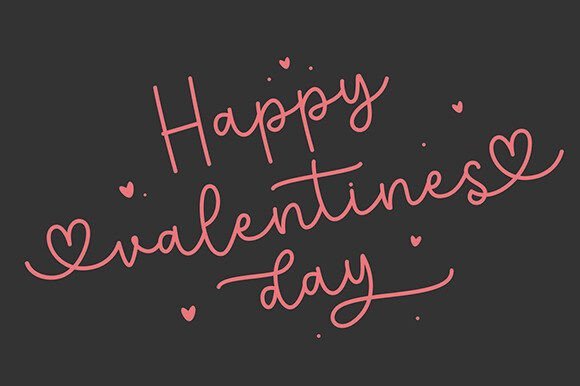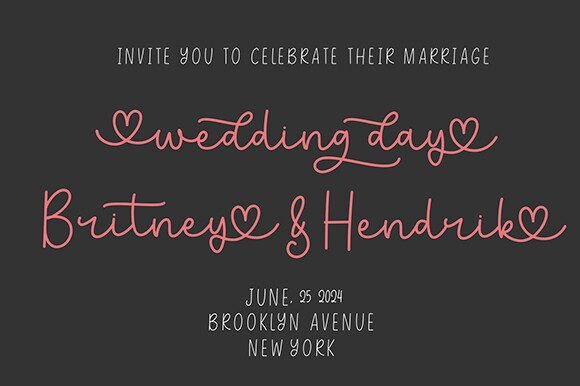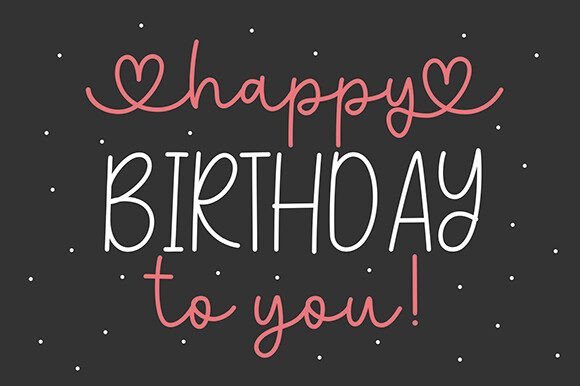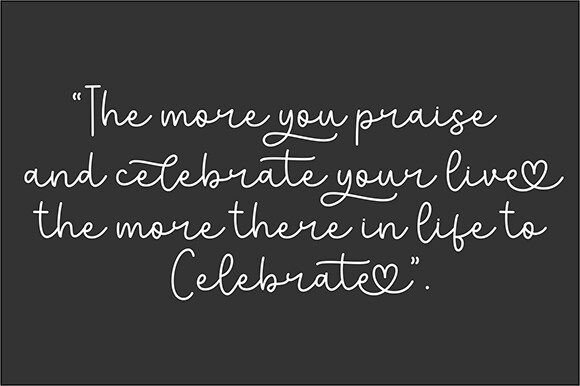
Firstdate Font
Firstdate is a quirky script font, perfect for crafting, branding, invitations, stationery, wedding designs, social media posts, advertisements, product packaging, product designs, labels, Posters, photography, special events, or anything.